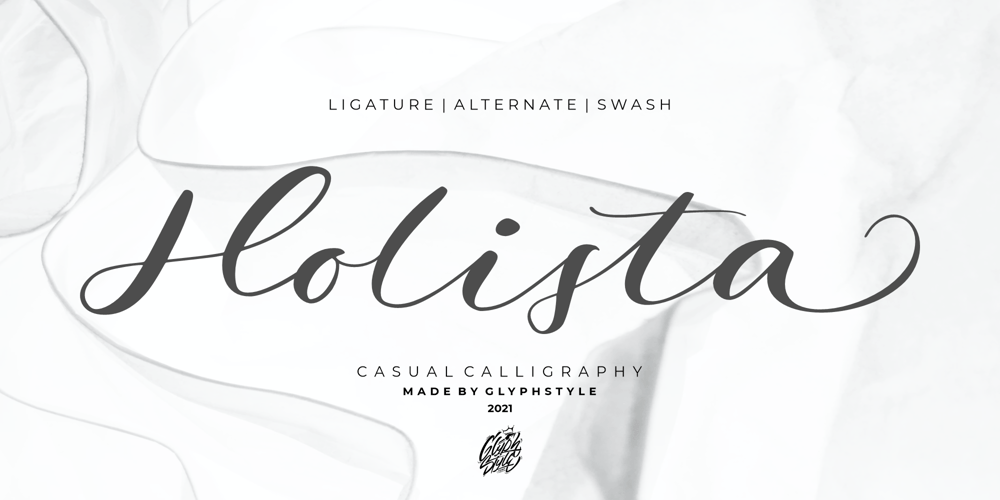
Holista Font Family was designed by Dimas Ardhi and published by GlyphStyle. Holista contains 1 styles and family package options. Holista is a casual calligraphy writing style, in a consistent bold-thin cursive. Beautiful and pretty font. This calligraphy font can be use for weddings, cosmetic product, photography logo, magazine, business cards, watermarks, etc.– Font feature Uppercase, Lowercase, Numerals & Punctuations, Stylistic alternate(ending), Ss01(ending), Ss02(beginning) Ligature, Swashes, Multilanguage